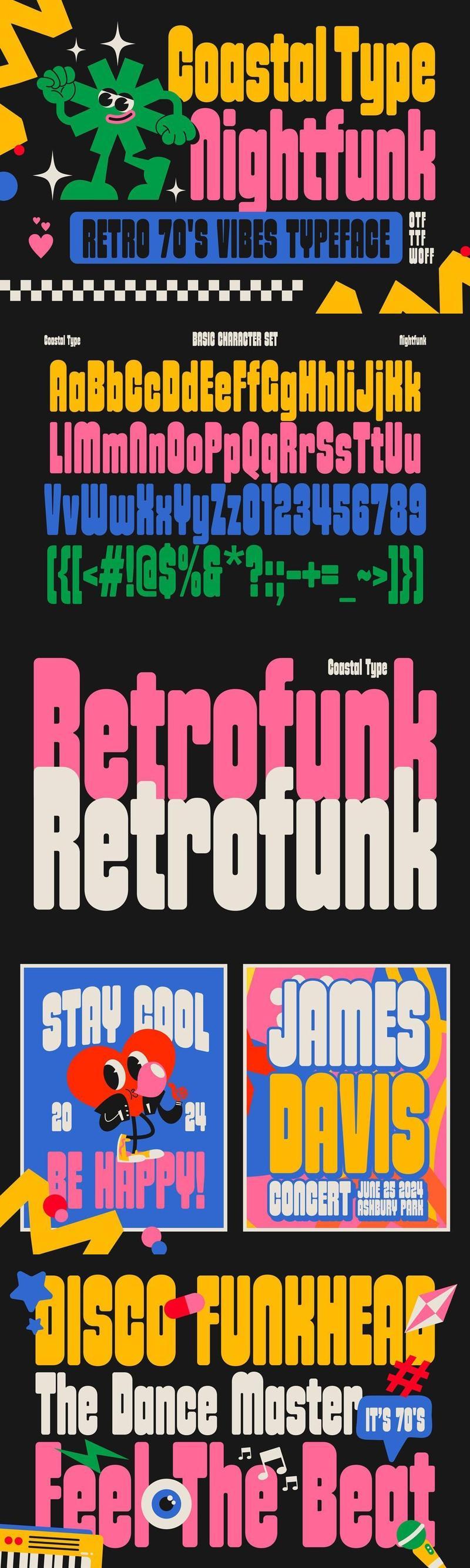
**Nightfunk** is a typographic time machine, radiating the vibrant energy of 60s to 80s music. Inspired by iconic album cover art, this font embodies the groove of funk and the glitz of disco. Its dynamic curves and bold style are perfect for anyone looking to channel retro vibes with a modern edge, bringing the rhythm of the past to today’s design stage.